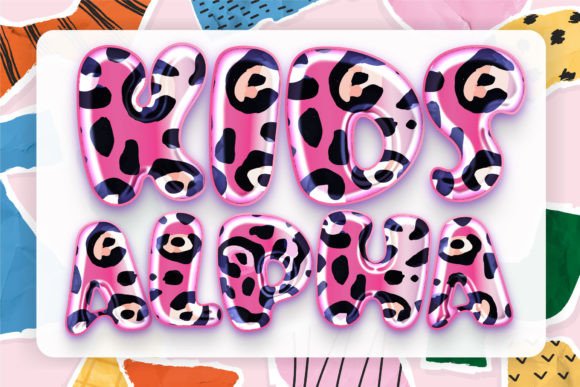
Playful Branding with the Kids Leona Typeface
Finding a typeface that captures genuine childhood joy without looking cheap or chaotic is a significant challenge in modern typography. We often see fonts that are either too rigid for creative projects or so whimsical that they lose legibility. Enter Kids Leona, a premium color font that bridges the gap between professional design and playful authenticity. It is not just another script font; it is a visual statement featuring a cute leopard style that bursts with color and personality. If you are working on a school project, launching a children’s brand, or designing marketing assets that need a friendly vibe, this typeface offers a unique solution that standard monochromatic fonts simply cannot provide.
Understanding the Appeal of Color Fonts
Before diving into specific applications, it is essential to understand what sets a color font apart from a standard serif font or sans serif font. Traditional fonts rely on a single color—usually black or white—to define their shape. Kids Leona, however, is built using OpenType-SVG technology. This means the font file itself contains color data, gradients, and texture. When you type the letter "A," you don't just get an outline; you get a fully rendered, colorful leopard-print character instantly.
This distinction is vital for brand identity. In a crowded market, standing out requires more than just a good logo; it requires a consistent visual language. The textured, animal-print style of this typeface brings a tactile quality to digital designs. It feels authentic and hand-crafted, which resonates well with audiences looking for warmth and creativity. Whether you are a content creator making YouTube thumbnails or a small business owner designing merchandise, the visual weight of Kids Leona ensures your text is not just read but felt.
Practical Applications for Designers and Entrepreneurs
The versatility of a creative font like Kids Leona allows it to shine across various mediums. It is not limited to just headers; its distinct personality makes it a powerful tool for different design assets.
Packaging and Product Design
For those in the business of physical goods, packaging design is your silent salesperson. Imagine a line of organic snacks for kids or a boutique toy brand. Using a standard, boring font on the packaging might make the product blend in with competitors. However, applying Kids Leona to the logo or product name instantly communicates fun and approachability. The leopard style suggests a wild, adventurous spirit that children love, while the colorful execution appeals to the parents' aesthetic sensibilities.
Digital Presence and Web Design
In web design, headers need to grab attention immediately. A display font like Kids Leona is perfect for hero sections on a homepage or for headers on a parenting blog. It breaks the monotony of body text (which should generally remain a readable sans serif font) and guides the visitor's eye to the most important information. However, because it is a color font, it is crucial to ensure your platform supports the rendering of these advanced glyphs to maintain that visual consistency across all browsers.
Invitations and Print Materials
From birthday invitations to school flyers, print materials often suffer from generic templates. Kids Leona allows hobbyists and event planners to create custom, professional-looking invitations without needing advanced graphic design skills. The font does the heavy lifting, providing the color and style that would otherwise require complex layering or illustration. It turns a simple text invite into a memorable keepsake.
Strategic Typography: Matching Font to Goal
Choosing the right typeface is about more than just picking something that looks "cute." It is a strategic decision that affects audience engagement and brand recognition.
When utilizing a bold typeface like Kids Leona, context is everything. It is a display font, meaning it is designed for impact rather than long-form reading. You would not use this font for an entire paragraph of body copy; doing so would compromise readability and tire the reader's eyes. Instead, use it for headlines, subheadings, or call-to-action buttons.
A practical tip for font pairing is to contrast the playful nature of Kids Leona with a clean, geometric sans serif font. For instance, pairing the colorful leopard text with a neutral font like Open Sans or Montserrat creates a professional balance. This contrast ensures that the design remains legible and sophisticated while still retaining the playful energy of the primary font. This approach helps improve professional presentation by showing that you understand how to balance creativity with functionality.